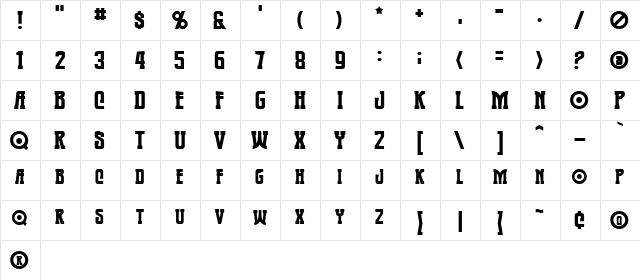
Warmonger BB Regular
| Foundry | Nate Piekos. Blambot.com |
| Designer | Nate Piekos |
Design Context for Warmonger BB Typeface
Warmonger BB is a composed and adaptable typeface that performs quietly and consistently across a wide range of design contexts.